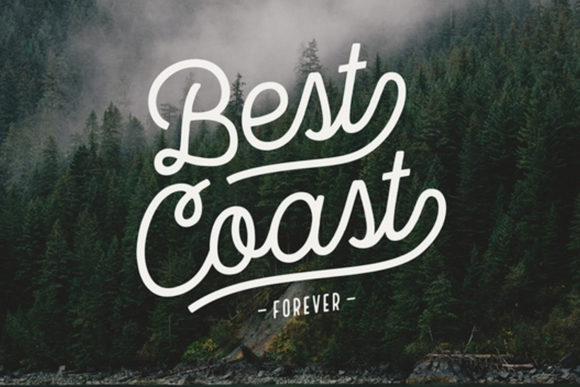
Local Brewery Font
db-ku.com - Script & Handwritten -- Local Brewery is a handwritten font with a vintage look. It includes six script styles and two sans serif styles. Use it to add that special retro touch to any design idea you can think of!